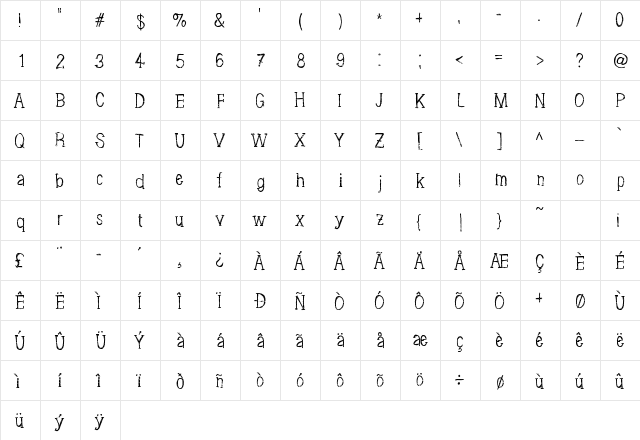
Brushings Regular
Design Context for Brushings Typeface
Brushings flows with the natural rhythm of handwritten lettering, making it ideal for designs that call for warmth and personal expression.